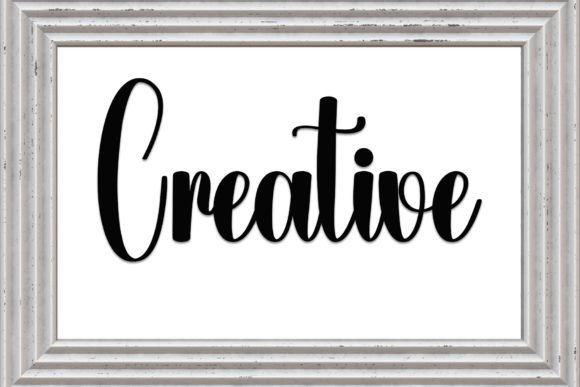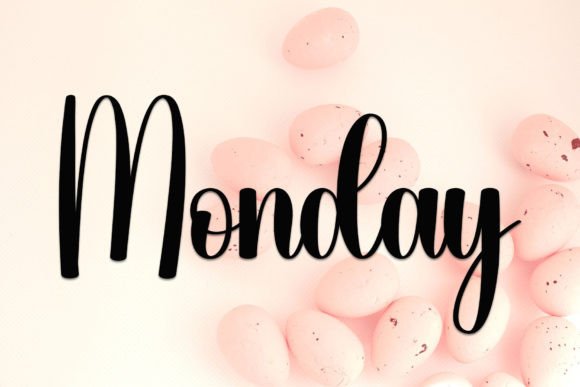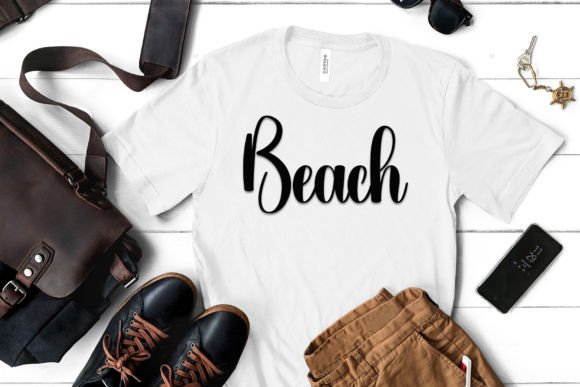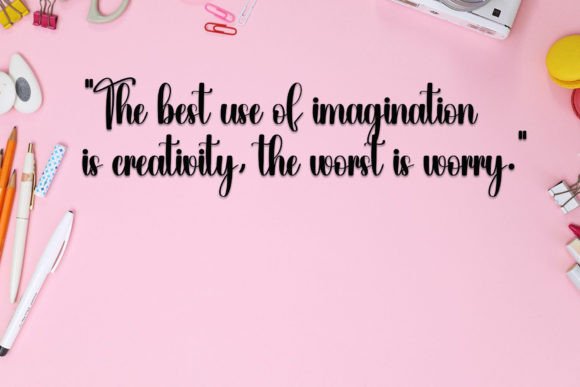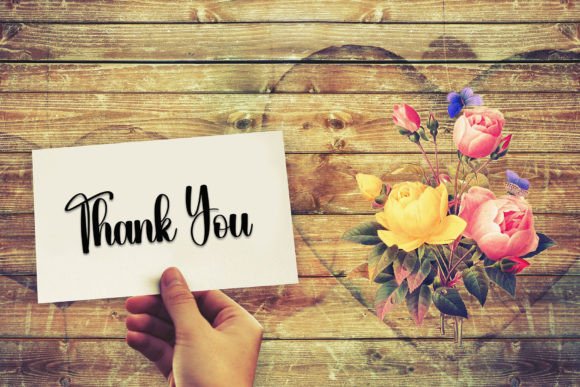
Daddy Font: Elevate Your Designs with Elegance and Sophistication
In the world of typography, fonts play a crucial role in conveying the tone and personality of a design. For designers and crafters seeking to add a touch of elegance and class to their projects, the Daddy Font is an excellent choice. This trendy handwritten font boasts a contemporary atmosphere and impeccable form, drawing inspiration from timeless classic calligraphy.
The Inspiration Behind Daddy Font
Daddy Font is a masterful blend of traditional calligraphy and modern design sensibilities. Its creators aimed to craft a font that would evoke the sophistication and refinement of classic calligraphy while still feeling fresh and contemporary. The result is a font that exudes elegance and poise, perfect for designers looking to add a touch of luxury to their work.
Key Features of Daddy Font
- Trendy Handwritten Style: Daddy Font features a stylish handwritten design that adds a personal touch to any project.
- Contemporary Atmosphere: The font’s modern sensibilities ensure it feels fresh and current, making it perfect for a wide range of design applications.
- Impeccable Form: Daddy Font’s precise and elegant letterforms make it ideal for designs where sophistication and refinement are paramount.
- Timeless Classic Calligraphy Inspiration: The font’s roots in traditional calligraphy provide a sense of heritage and tradition, while still feeling innovative and forward-thinking.
Use Cases for Daddy Font
Daddy Font’s versatility makes it suitable for a variety of design projects, including:
- Logo Design: The font’s elegant and refined nature makes it perfect for logos that require a touch of sophistication.
- Wedding and Event Design: Daddy Font’s classic calligraphy inspiration and modern sensibilities make it an excellent choice for wedding invitations, programs, and other event materials.
- Branding and Packaging: The font’s unique blend of traditional and modern elements makes it ideal for brands seeking to establish a distinctive and memorable identity.
- Stationery and Greeting Cards: Daddy Font’s elegant design and precise letterforms make it perfect for creating beautiful stationery and greeting cards.
Tips for Using Daddy Font Effectively
To get the most out of Daddy Font, consider the following tips:
- Pair with Complementary Fonts: Combine Daddy Font with other fonts that complement its elegant and refined nature to create visually appealing typography.
- Experiment with Colors and Textures: The font’s versatility allows it to work well with a range of colors and textures, so don’t be afraid to experiment and find the perfect combination for your design.
- Pay Attention to Kerning and Spacing: As with any font, proper kerning and spacing are essential to ensuring Daddy Font looks its best.
Daddy Font is a stylish and sophisticated handwritten font that brings a touch of elegance and class to any design project. Its unique blend of traditional calligraphy inspiration and modern sensibilities makes it perfect for designers and crafters seeking to create refined and memorable designs. With its versatility, impeccable form, and trendy style, Daddy Font is an excellent addition to any designer’s toolkit.